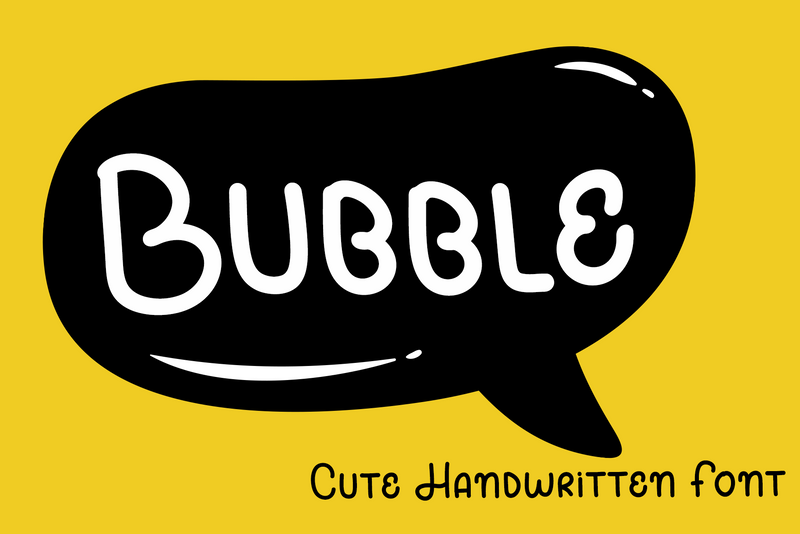
Bubble - playful font
Bubble is a fun font. Masterfully designed to become a true favorite, this font has the potential to bring each of your creative ideas to the highest level!.